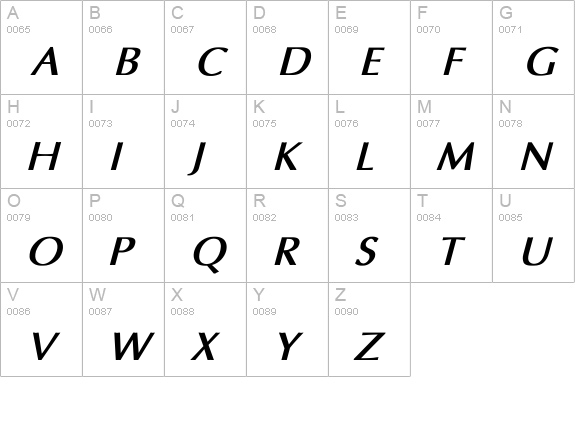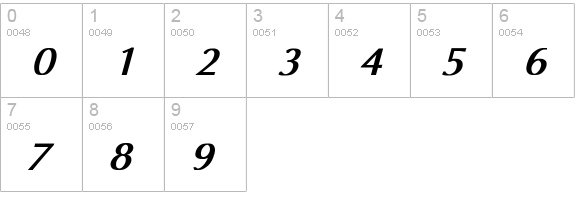
Eppley Bold Italic Font Details
Eppley Bold Italic is a strong, high-contrast, italic variant in the Eppley typeface family \xE2\x80\x94 well suited to headlines, attention-grabbing titles, and strong calls-to-action.
Eppley Bold Italic font is a sleek and modern typeface that exudes sophistication and elegance. Its bold strokes and italicized design make it perfect for adding a touch of flair to any project. Whether you're designing a poster, logo, or website, Eppley Bold Italic font will make your text stand out and grab attention. The best part? Eppley Bold Italic font is completely free to download at FontsMarket.com. You can easily access this stylish font and elevate your designs without breaking the bank. Don't miss out on this incredible opportunity to enhance your creative projects with Eppley Bold Italic font – download it today and experience the power of beautiful typography at your fingertips.